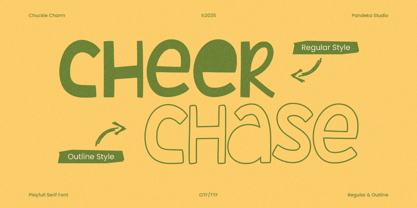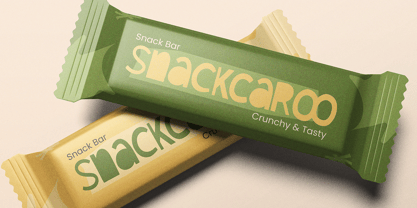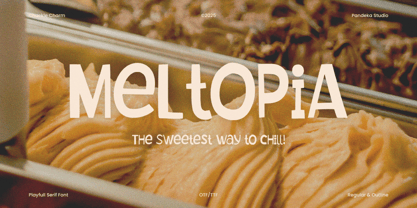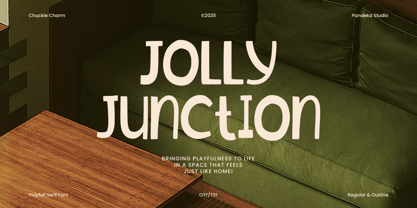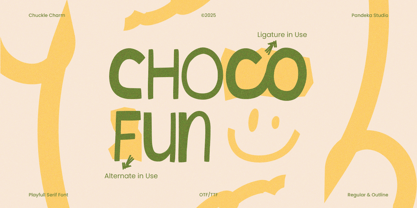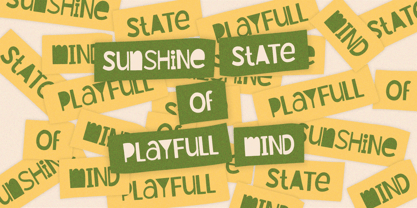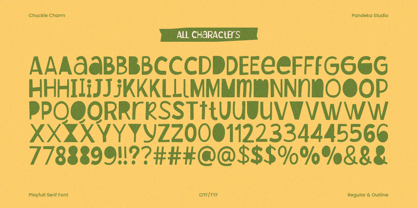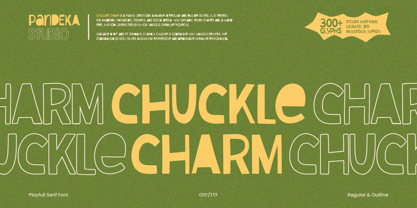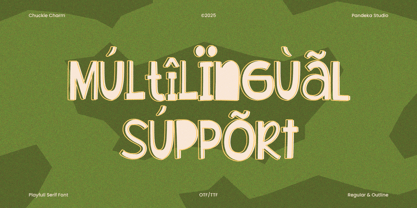
Chuckle Charm
Die Schriftfamilie Chuckle Charm wurde von Sagara Nararya entworfen und von Pandeka Studio veröffentlicht. Chuckle Charm enthält 2 Stile und Familienpaketoptionen. Mehr über diese Familie
Chuckle Charm – Quirky Serif Duo Typeface
Chuckle Charm is a playful handcrafted serif font available in 2 styles: Regular and Outline. With its fun curves and bold charm, it’s perfect for quirky serif duo, playful typography, whimsical design, fun lettering, creative style, bold aesthetic, and other standout design needs. Ideal for posters, packaging, greeting cards, social media, and DIY projects, Chuckle Charm adds a touch of joy and uniqueness to every creation.
• 2 Style: Regular and Outline
• Full Character Set: Uppercase, lowercase, numbers, symbols, and punctuation
• 105+ Ligatures and alternates